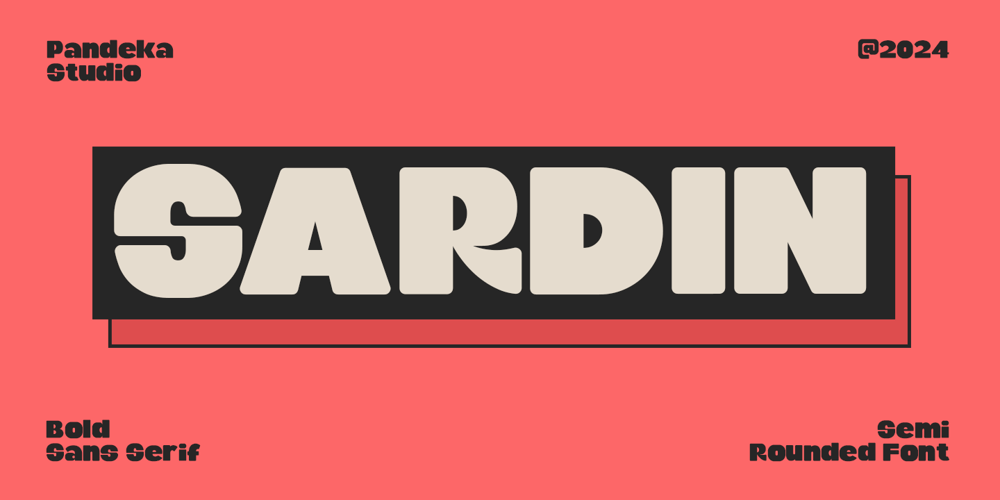
Sardin Font Family was designed by Sagara Nararya and published by Pandeka Studio. Sardin contains 1 styles and family package options. Sardin – was designed in late 2023 and published on May 2024. The Typeface was inspired by the 90’s playful cartoons and comic books.Sardin – contains everything you need to create stunning typography – from headline fonts to body text fonts all in one place.Whether you’re starting out or you’ve been designing for years, Sardin has everything you need. Can be used for modern and vintage designs, and also can be easily paired with some graphic elements (illustration, photography) this font is perfect for, logotype, branding, title, and packaging.So take your design skills up a notch and get started on some fresh new projects with Sardin today!What’s Included? Sardin Main Files Instructions (Access special characters in all apps, even in Cricut Design) Accessible in Adobe Illustrator, Adobe Photoshop, Microsoft Word even Canva! PUA Encoded Characters. Fully accessible without additional design software Language Support: Danish, English, Estonian, Filipino, Finnish, French, Friulian, Galician, German, Gusii, Indonesian, Irish, Italian, Luxembourgish, Norwegian Bokmål, Norwegian Nynorsk, Nyankole, Oromo, Portuguese, Romansh, Rombo, Spanish, Swedish, Swiss-German, Uzbek (Latin)Feel free to follow, like and share. Thanks so much for checking out my shop!Have a great day!Pandeka Studio